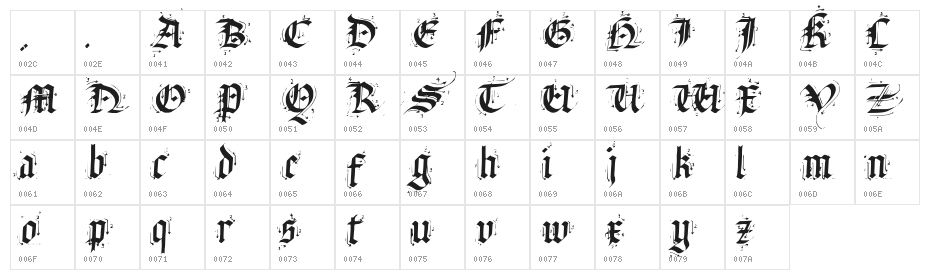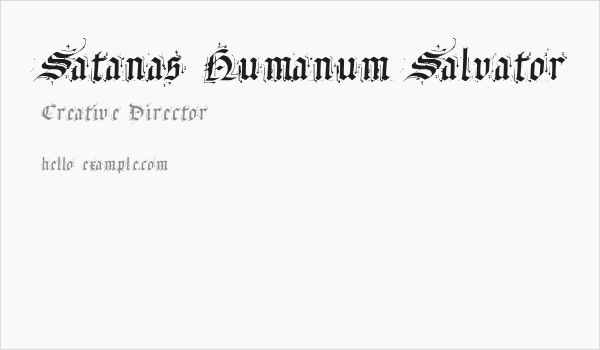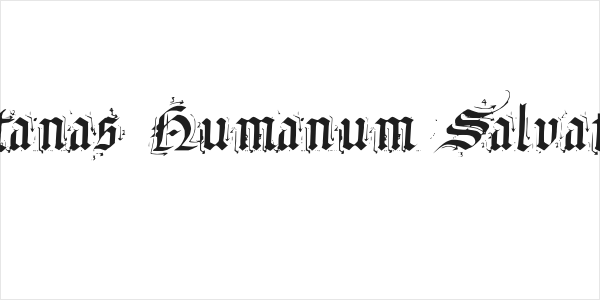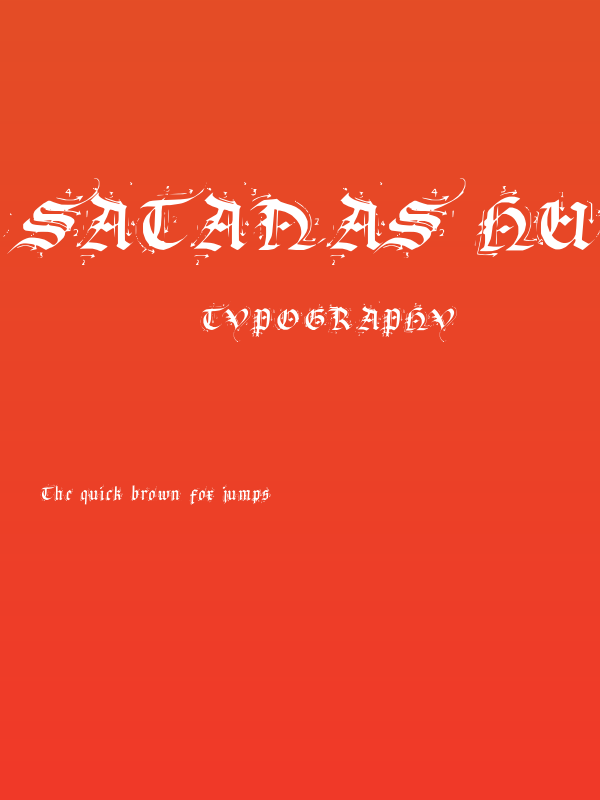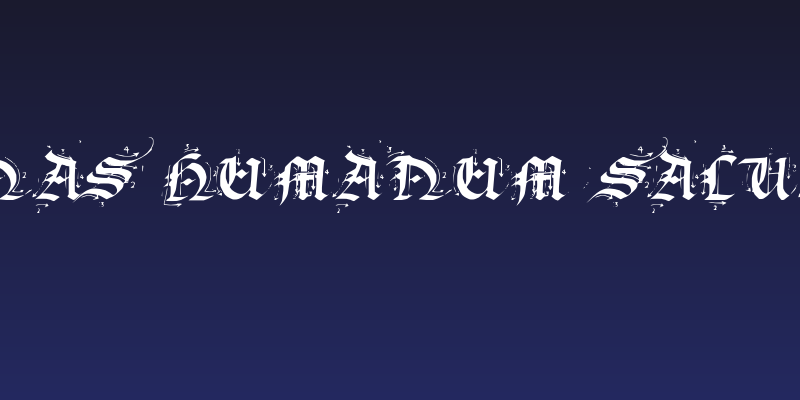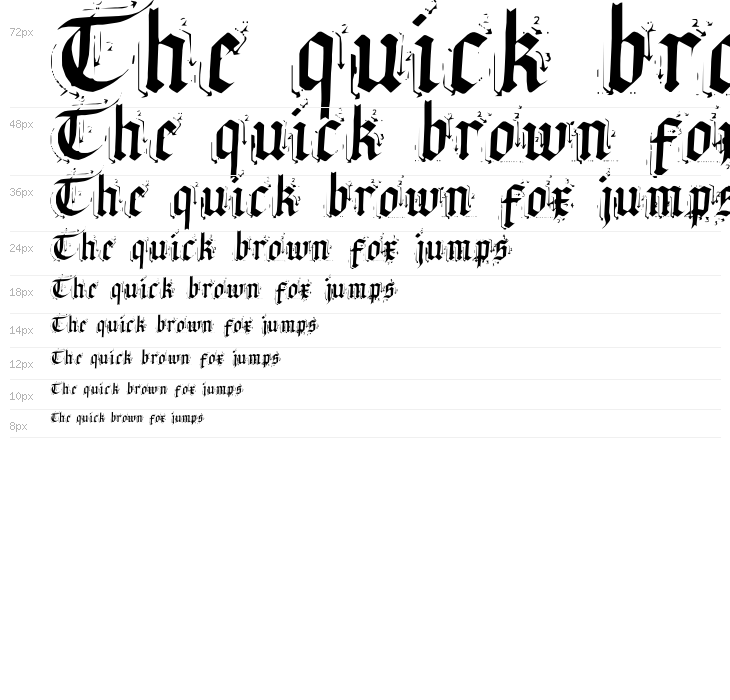
Satanas Humanum Salvator Font
Satanas Humanum Salvator Description
This font exhibits a traditional blackletter style, characterized by its intricate and ornate design. The letters are bold and angular, with sharp edges and decorative flourishes that give it a gothic and medieval appearance. The uppercase and lowercase letters maintain a consistent style, with the uppercase being slightly more elaborate. The numbers and special characters follow the same aesthetic, ensuring a cohesive look across all glyphs. This font's dramatic and historical feel makes it suitable for projects that require a touch of antiquity and elegance.
| Proposed Projects | Ideal for historical documents, gothic-themed designs, book covers, and event posters. |